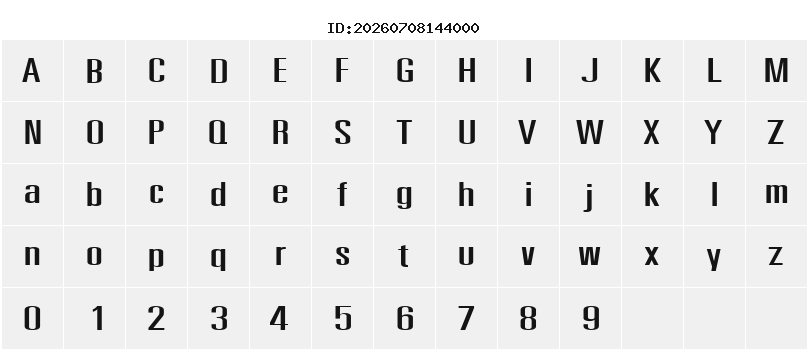
DSU_PatPong Extended Preview
• Font Name: DSU_PatPong Extended
• Full Font Name: DSU_PatPong Extended
About DSU_PatPong Extended.ttf
DSU_PatPong Extended.ttf is a modern, elegant sans-serif font designed for ultimate readability and visual harmony. Perfect for branding, headlines, web design, and print materials.